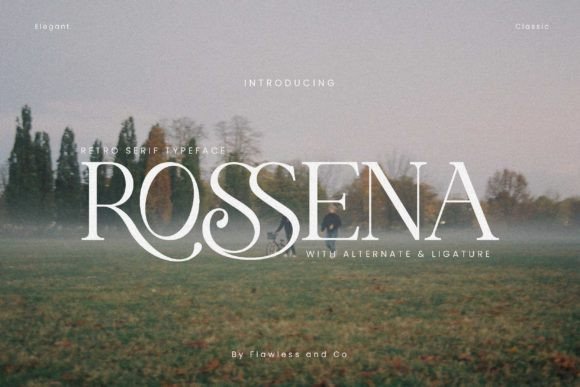
Rossena Font
Introducing Rossena, the perfect font to give your projects a modern retro touch. Created by Flawless And Co, this serif font is the epitome of style and sophistication. The unique alternate and ligature characters make Rossena stand out from other fonts, giving your designs a unique and eye-catching edge.
With Rossena, you can create a classic and contemporary feel in all your projects. Whether you're designing a logo, headline, or other branding materials, Rossena is the ideal font for you. Its elegant and stylish design will elevate the look and feel of any project, making it stand out from the crowd.
What sets Rossena apart from other fonts is its PUA encoding, which means that you can access all glyphs and swashes with ease. This feature makes it easy to incorporate unique and personalized touches to your designs, giving them a professional and polished finish.
So why choose Rossena? Not only is it a beautiful and stylish font, but it's also incredibly versatile. Its sleek and sophisticated design can be used for a variety of projects, from wedding invitations to book covers. Rossena is the perfect choice for anyone looking to add a touch of elegance and class to their designs.